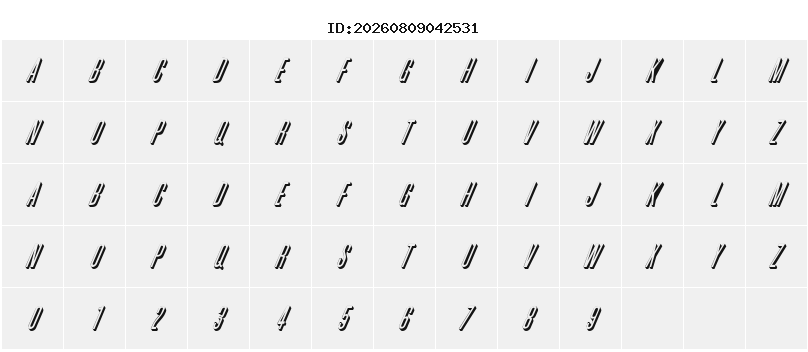
Phoenix D Preview
• Font Name: Phoenix D
• Font ID: Altsys Fontographer 4.1 Phoenix D Italic
• Full Font Name: Phoenix D Italic
• PostScript Name: PhoenixDItalic
About Phoenix D.ttf
Phoenix D.ttf is a modern, elegant sans-serif font designed for ultimate readability and visual harmony. Perfect for branding, headlines, web design, and print materials.